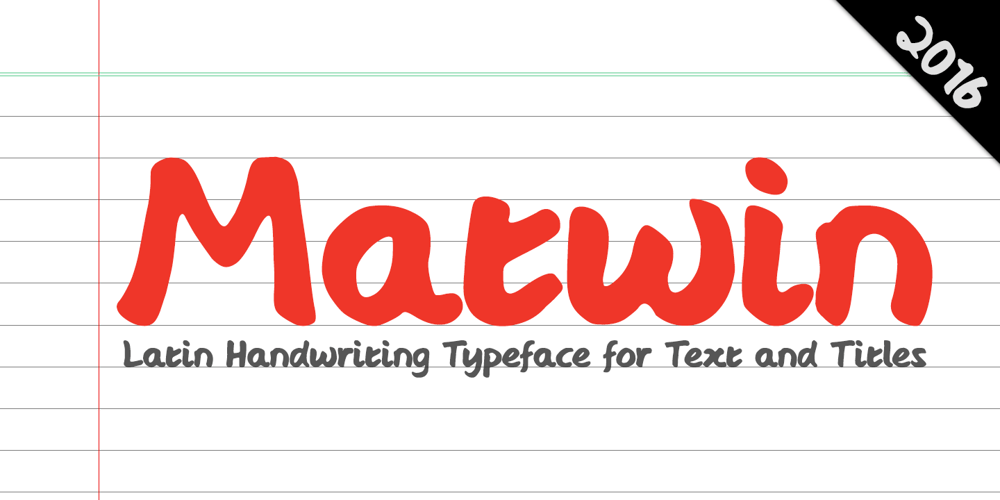
Matwin
Matwin font
Matwin Font Family was designed by Eyad Al-Samman and published by Eyad Al-Samman. Matwin contains 1 styles and family package options. The idea behind designing ‘Matwin’ font was related to the youngest children of the designer namely the M-A fraternal twin. The name of the typeface (i.e., Matwin or M-A-Twin) was composed by merging three linguistic small syllables. The ‘-Twin’ syllable refers to the non-identical twin of the designer. The ‘M-’ and ‘A-’ syllables refer to the initial letters of the twin’s first names (i.e., Muhammad and Abdul-Wli) respectively. The typeface ‘Matwin’ has a personal trait which makes it as one of the most favorite fonts for the designer among his humble collection of fonts. Modestly, it is the designer’s handwriting and it has been designed to be added to the script font family known as brush un-joined. The brief process for having this typeface alive was done by firstly scanning the real script for each Latin letter, digit, symbol which were handwritten earlier by the designer himself. Then, the combination of these many scanned characters was manipulated using digital programs to produce at the end the complete typeface. The typeface has the essential glyphs comprising the character set required for most of the Latin, Western, and Eastern European languages including the Irish language. It combines +605 characters and this makes it as a pro font. It also entitles it to be applicable for usage in many languages of different communities and nations worldwide. ‘Matwin’ is dedicated for those who search for a genuine handwriting typeface with a natural touch and informal style to be added on their different published and produced products and services. It is more preferable when it is used in artistic, typographic, and other works using the lowercase letters or by mixing both upper- and lower-case letters. Moreover, the typeface is appropriate for any type of typographic and graphic designs in web, print, and other media such as boards and walls. It is also preferable to be used in the wide fields related to publications especially children-related ones, comics, printed or handwritten menus of cafeterias and restaurants at universities and public places, as well as other prints related to services and production industries. It also can create a very personal and friendly impact when used in headlines, books and novels’ covers, posters, titles, messages, envelopes addresses, grocery lists, postcards, ads, fliers, journals, paper arts, public notices, invitations, scrapbooks, notations, products’ surfaces for organic foods and juices, logos, medical packages related to children, Android applications, as well as products and corporates branding and the like. In a nutshell, ‘Matwin’ typeface fits without a glitch those (i.e., designers, typographers, publishers, artists, packagers, service providers, and so on) who have drastic and strong tendency towards imprinting their works with spontaneous and outlandish touches made by this typeface. Please, enjoy it extremely.